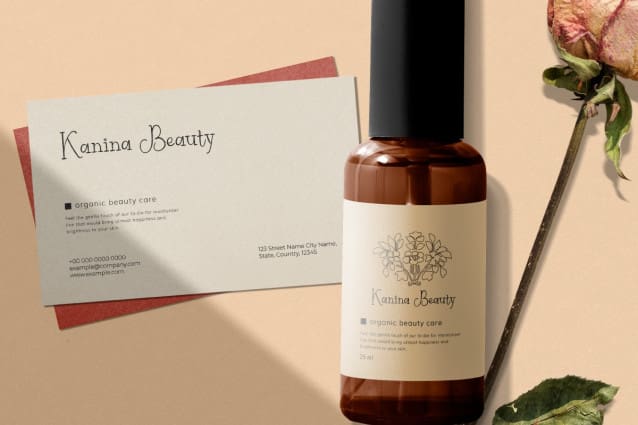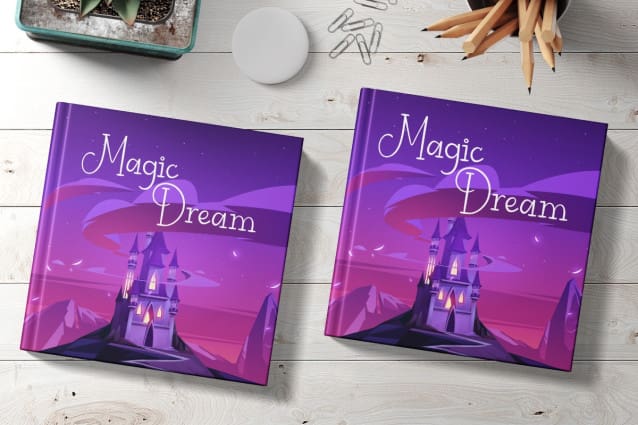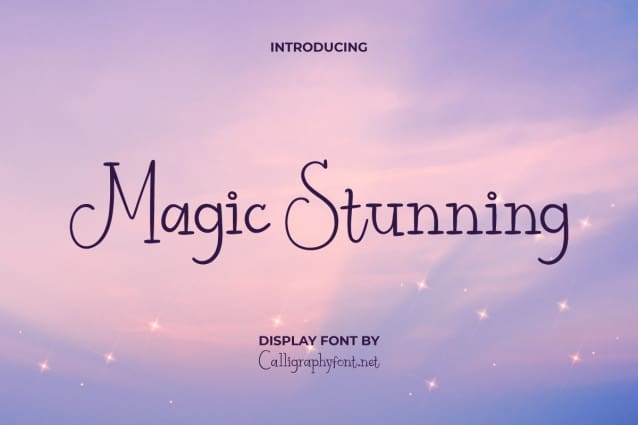
Magic Stunning Font
Magic Stunning Font is a cute modern display font with a magical charm. Exclusively created to perfect your design!. The font has a modern display style with an enchanting feels. The appearance of this font is so magical and can bewitch your heart to use it immediately to any creative project, such as apps, label, cover, brand identity, brochure, card, flyer, header, invitation, mock up design, packaging, photo card, poster, quote, social media post, stationery, sticker, thank you card, title, website, and anything else that would look stunning with this font!
Magic Stunning Font is a simple display font that has its own charm that will stand out in any industry, such as accessories, advertisement, comic book, bakery, café, cinema, content creator, crafting, entertainment, event organizer, fashion, graphic design, handicraft, homeware, interior design, movie, printing, publishing, writer, and many more!